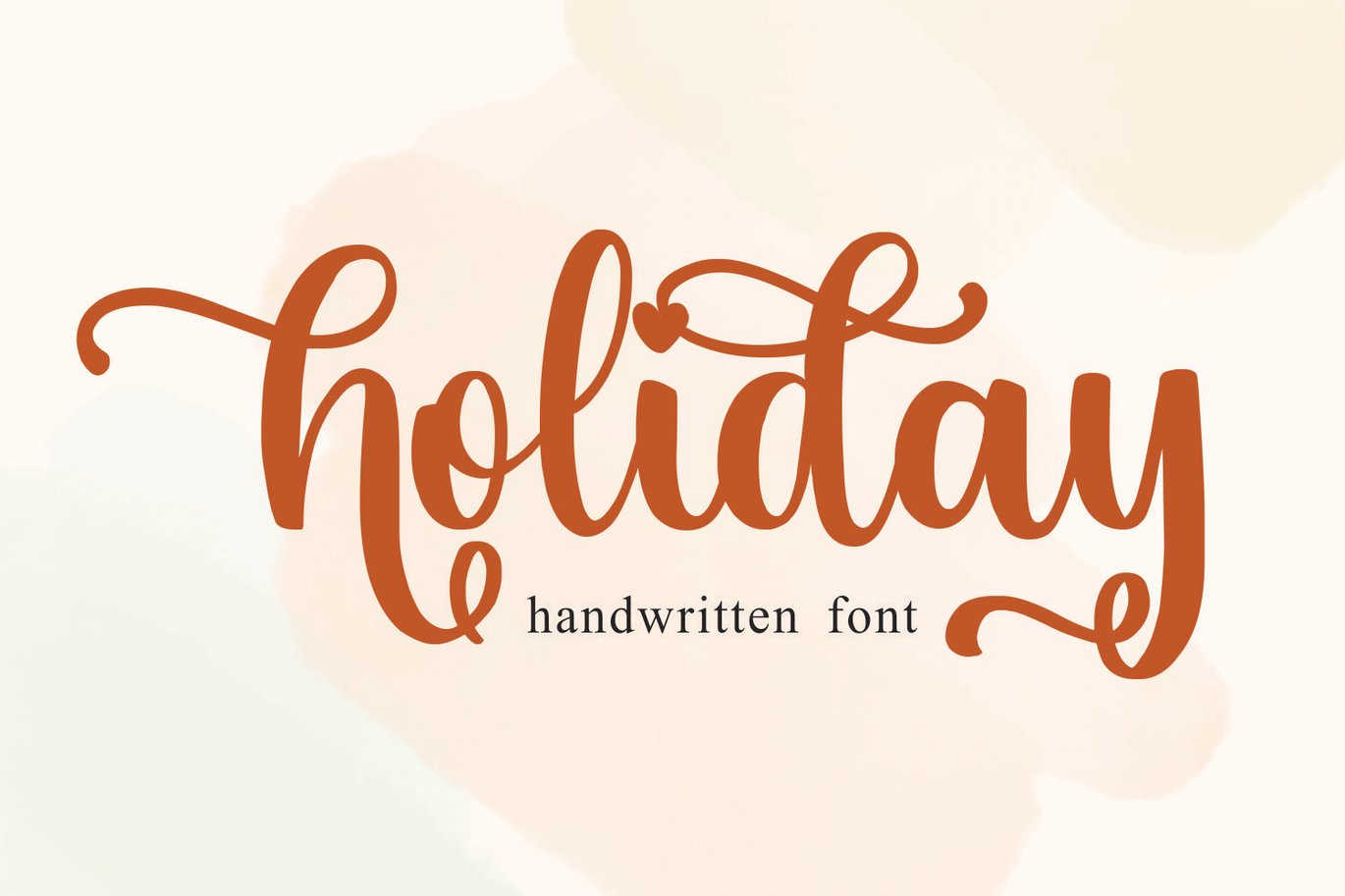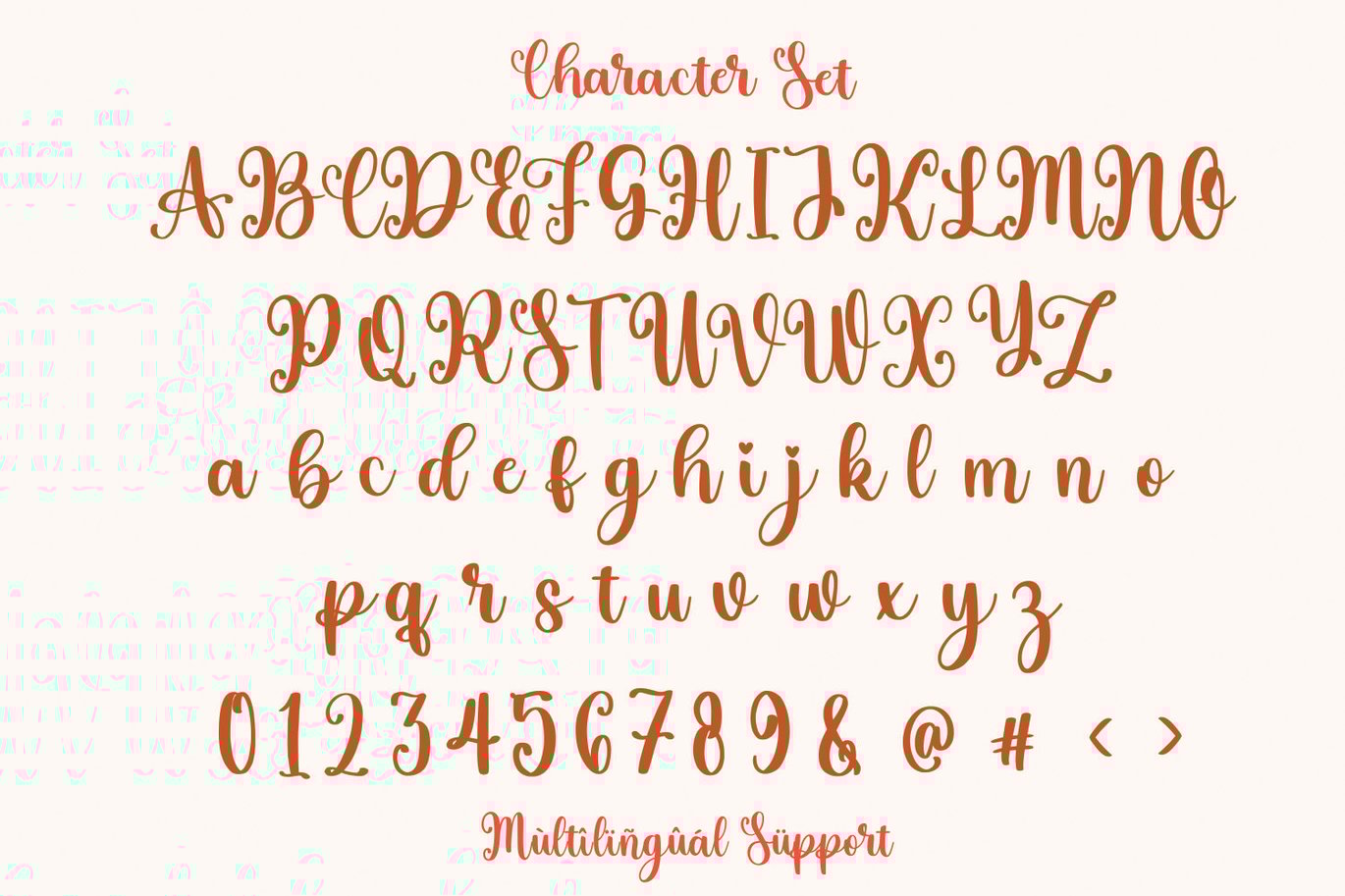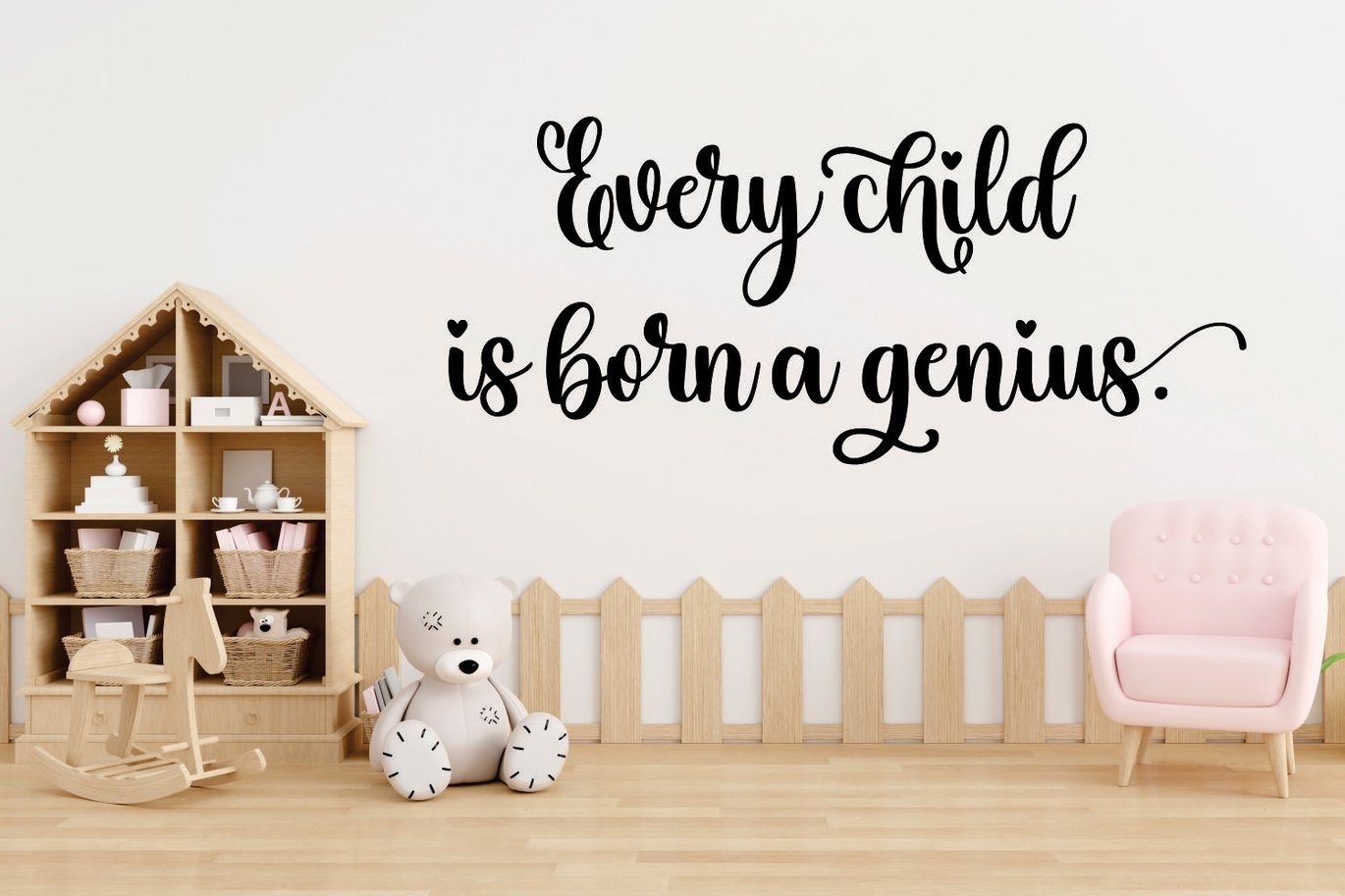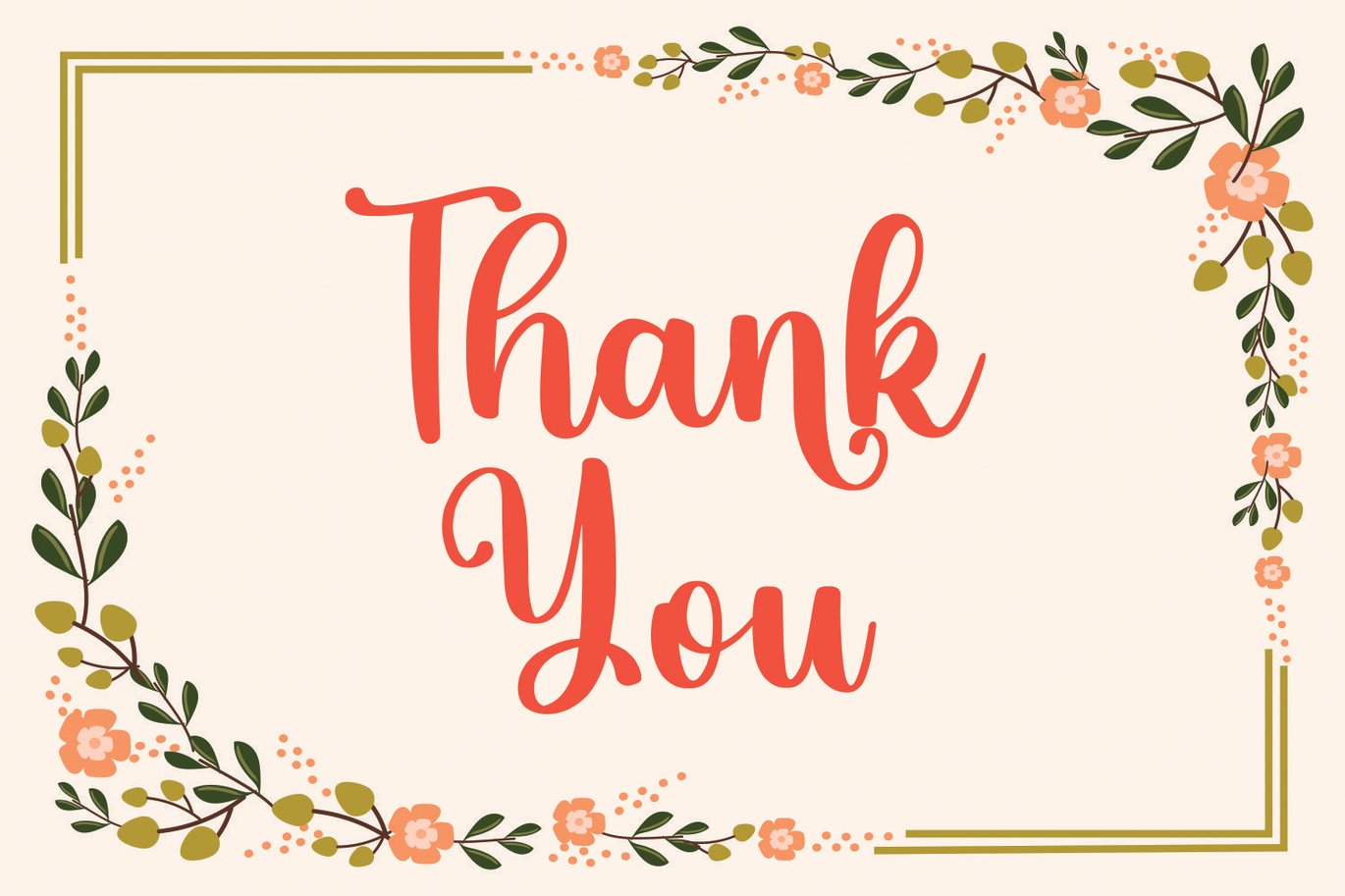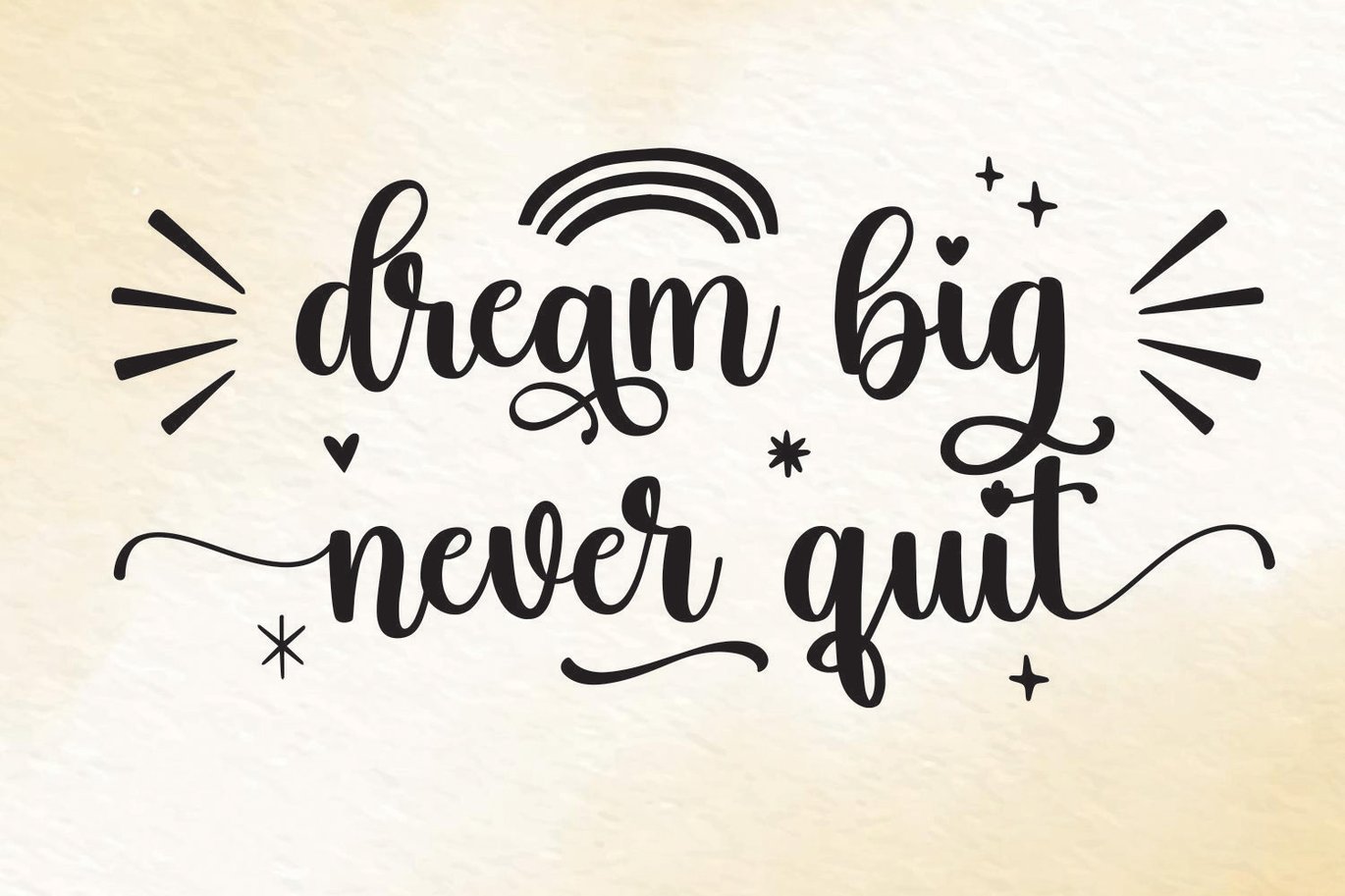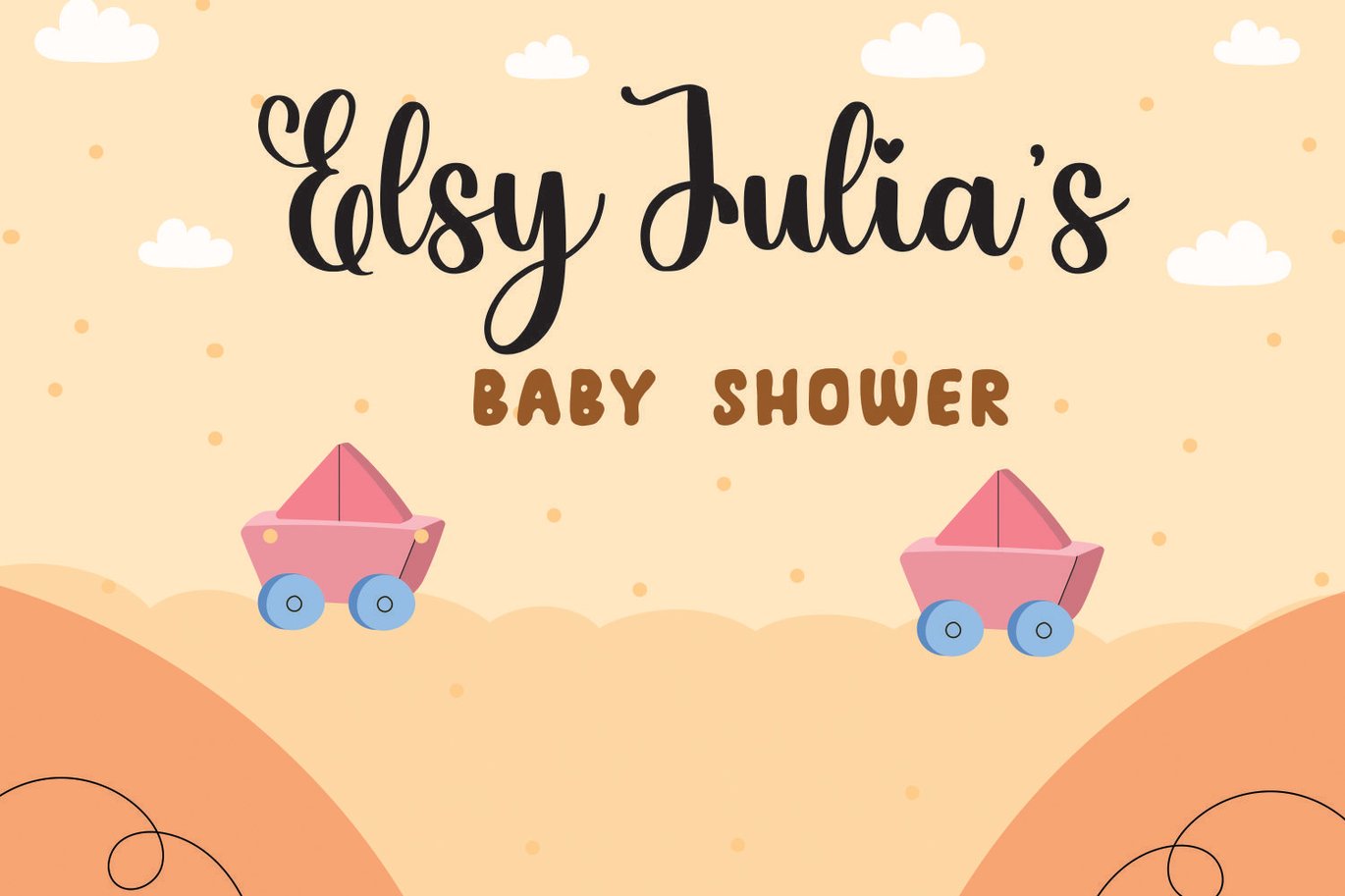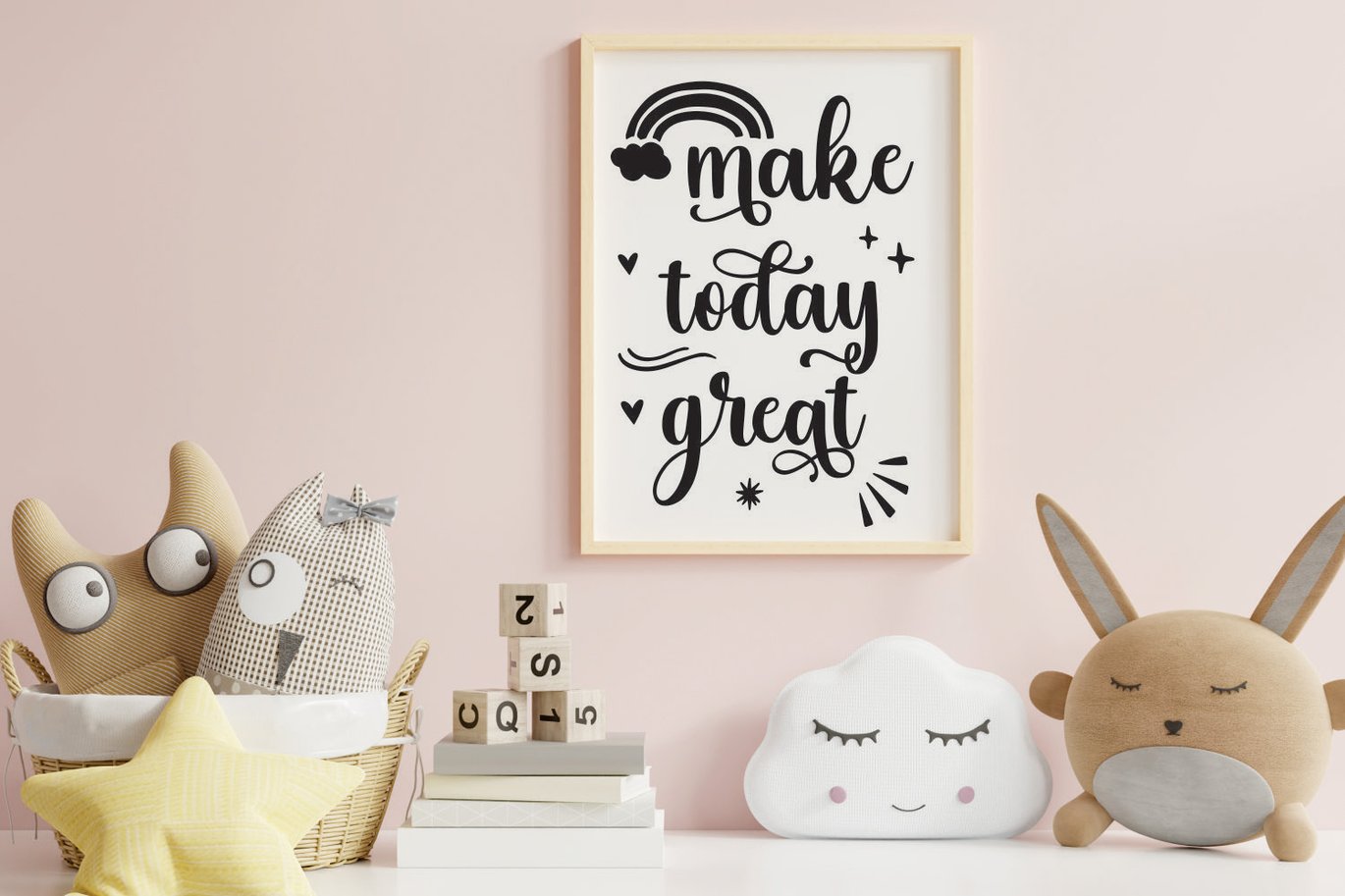
Holiday – Christmas Font
Holiday Script Handwritten Font is the perfect font to give your designs a fun and playful feel.
This font is handcrafted with love, featuring natural curves and bouncy strokes that will add a personal touch to your projects.
Whether you’re creating invitations, greeting cards, posters, or social media posts, Holiday Script Handwritten Font will make your designs stand out.
This font features a unique combination of playfulness and elegance, making it the perfect choice for any design project.
With its easy-to-read letters and stylish flourishes, Holiday Script Handwritten Font is sure to grab attention and leave a lasting impression on your audience.